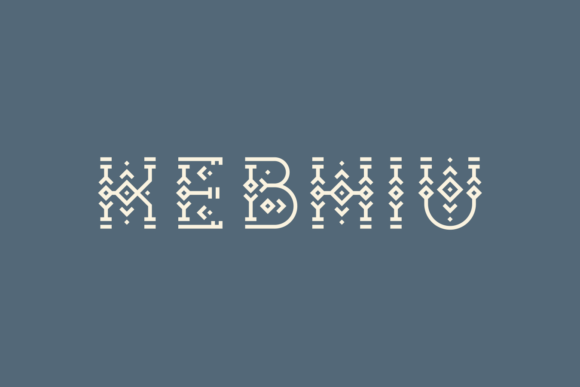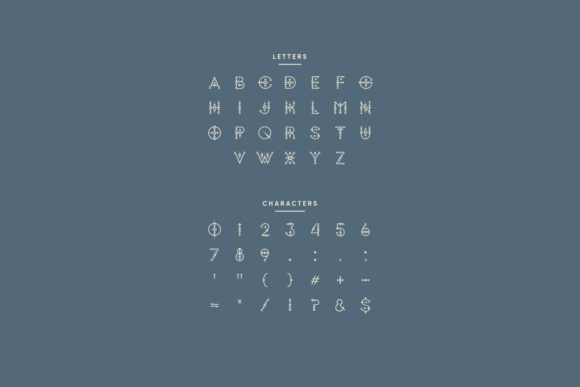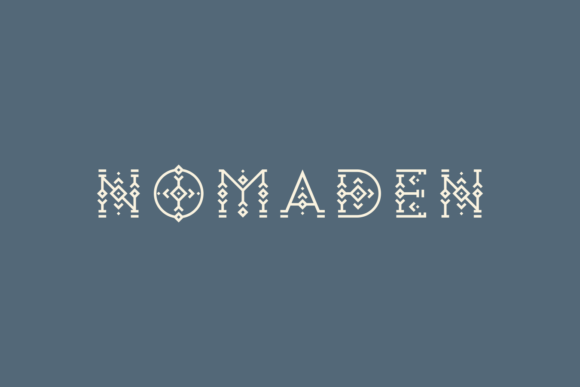
Discover the Unique Charm of Bemuren Font: A Minimalist All-Caps Display
In the world of typography, fonts play a crucial role in conveying the tone and aesthetic of a design. For designers and crafters looking for a vintage touch with a modern twist, the Bemuren Font is an excellent choice. This minimalist all-caps display font is not only visually appealing but also incredibly versatile, making it perfect for a wide range of design projects.
The Essence of Bemuren Font
**Bemuren** is a vintage font that embodies the spirit of minimalist design while offering an original look that stands out. Its all-caps display is clean, crisp, and highly legible, making it an ideal choice for various craft ideas. Whether you’re working on logos, brochures, magazines, letterhead, titles, or many other types of designs, Bemuren Font brings a unique charm that can elevate your project.
Hippie-Inspired Boho Theme
One of the distinctive features of Bemuren Font is its hippie-inspired boho theme. This aspect makes it a perfect complement for hipsters and bohemian designs. The font exudes a laid-back, free-spirited vibe that resonates with the bohemian lifestyle and aesthetic. Designers looking to infuse their projects with a touch of boho chic will find Bemuren Font to be a valuable asset.
Nordic Feel and Versatility
In addition to its bohemian roots, Bemuren Font also showcases a noticeable Nordic feel. This blend of influences gives the font a unique character that can appeal to a broad audience. The Nordic aesthetic is known for its simplicity, functionality, and beauty, all of which are evident in Bemuren Font. This versatility makes it an excellent choice for designers who aim to create projects with a distinct yet universally appealing look.
Applications of Bemuren Font
The applications of Bemuren Font are vast and varied. Here are a few ideas where this font can make a significant impact:
- Logos: Create memorable and stylish logos that stand out with Bemuren Font’s unique vintage appeal.
- Brochures and Magazines: Add a touch of sophistication and character to your print materials.
- Letterhead: Elevate your business correspondence with a professional yet distinctive look.
- Titles and Headings: Use Bemuren Font to create eye-catching titles and headings for your designs.
- Web Design: Incorporate this font into your website design for a stylish and cohesive look.
Why Choose Bemuren Font?
Choosing Bemuren Font for your design project comes with several advantages:
- Unique Aesthetic: Stand out with a font that offers a refreshing blend of vintage and minimalist design.
- Versatility: Suitable for a wide range of design projects, from print to digital media.
- Legibility: Its all-caps display ensures that your message is conveyed clearly and effectively.
- Trend-Relevance: Stay on-trend with a font that complements both bohemian and Nordic design themes.
| Font Name | Bemuren Font |
| Author | adabsubandi |
Bemuren Font is a remarkable addition to any designer’s toolkit. Its unique blend of vintage charm, minimalist appeal, and versatility makes it an excellent choice for a wide array of projects. Whether you’re aiming to create a bohemian-inspired design or incorporate a Nordic feel into your work, Bemuren Font is sure to deliver. Explore the possibilities of Bemuren Font and discover how it can elevate your designs to new heights.